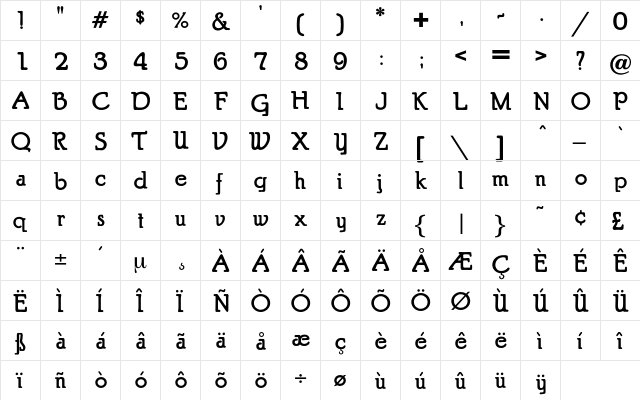
Mormone Regular
Design Context for Mormone Typeface
Mormone offers clean, dependable letterforms without strong stylistic allegiance, making it a practical choice for designers who need flexibility.